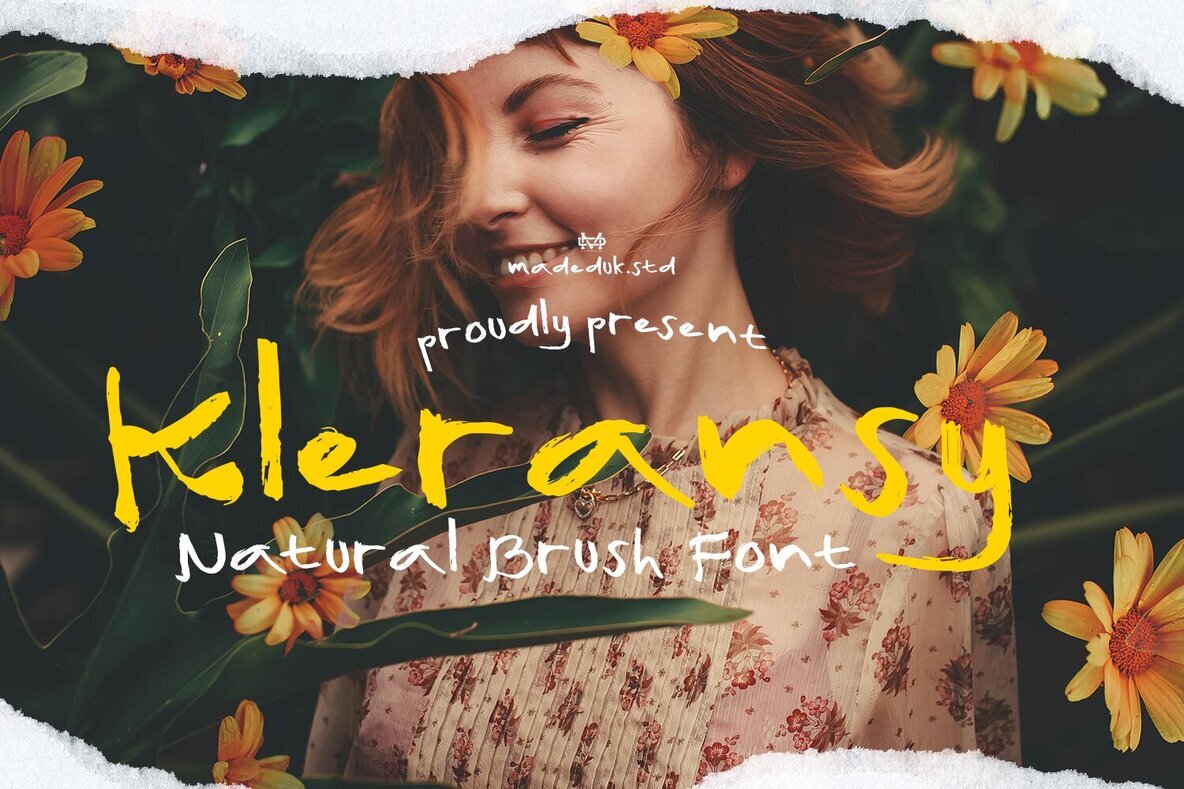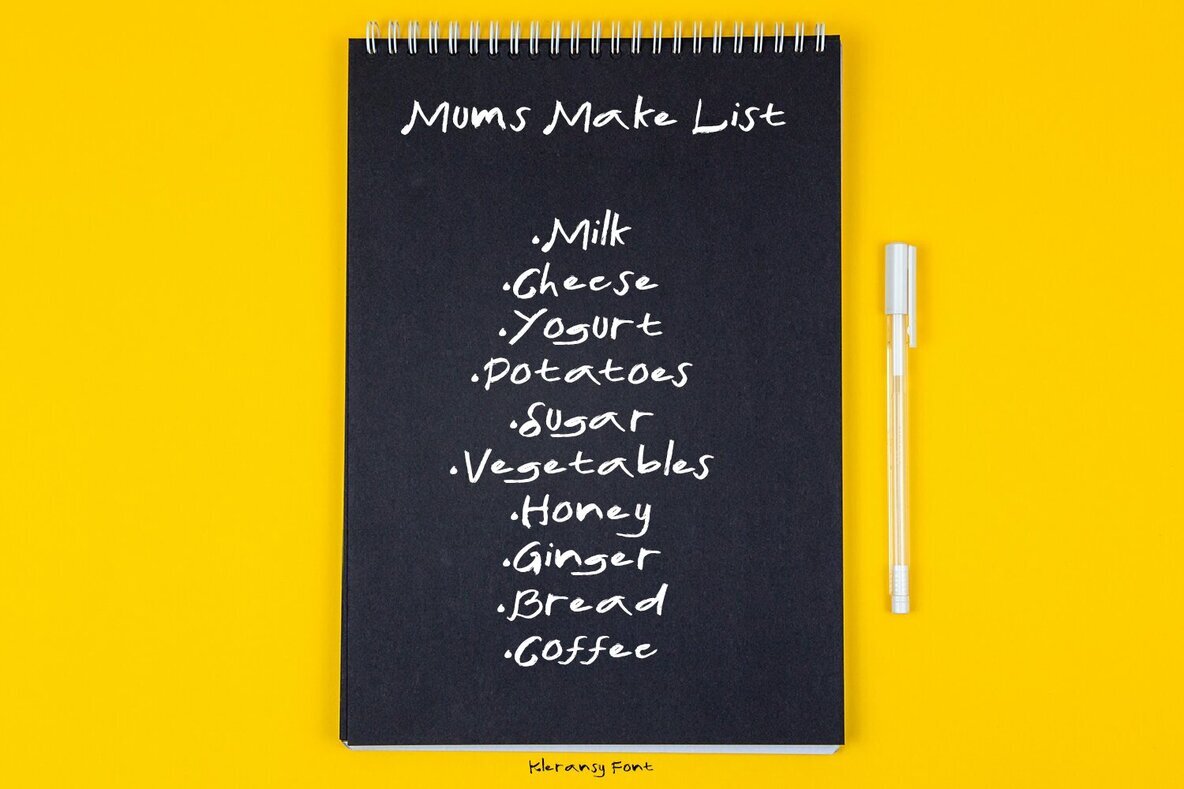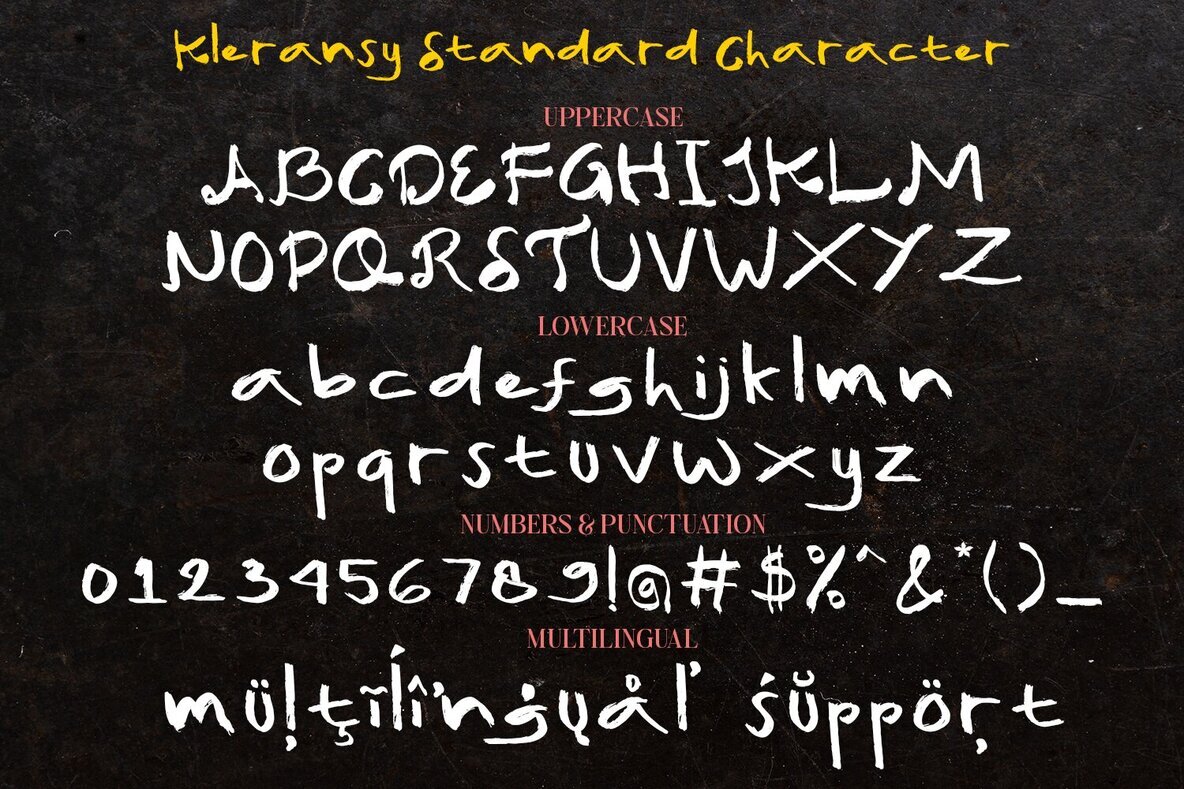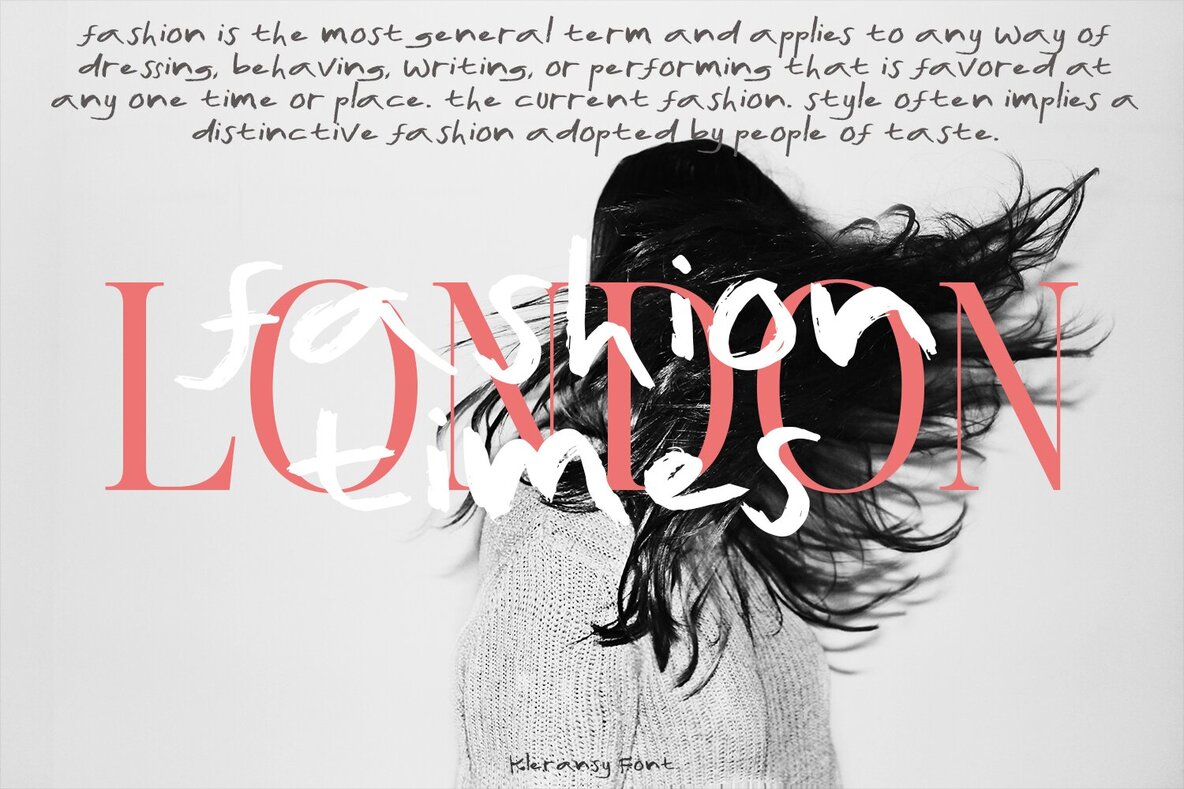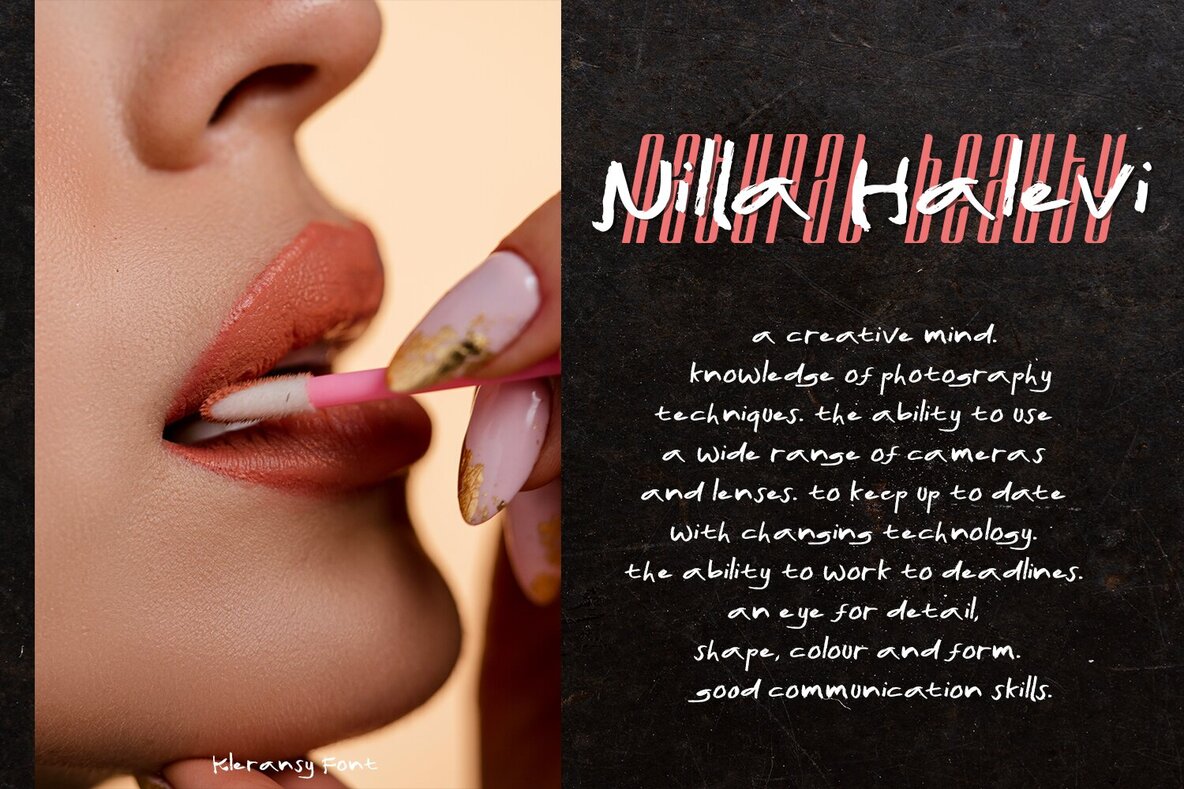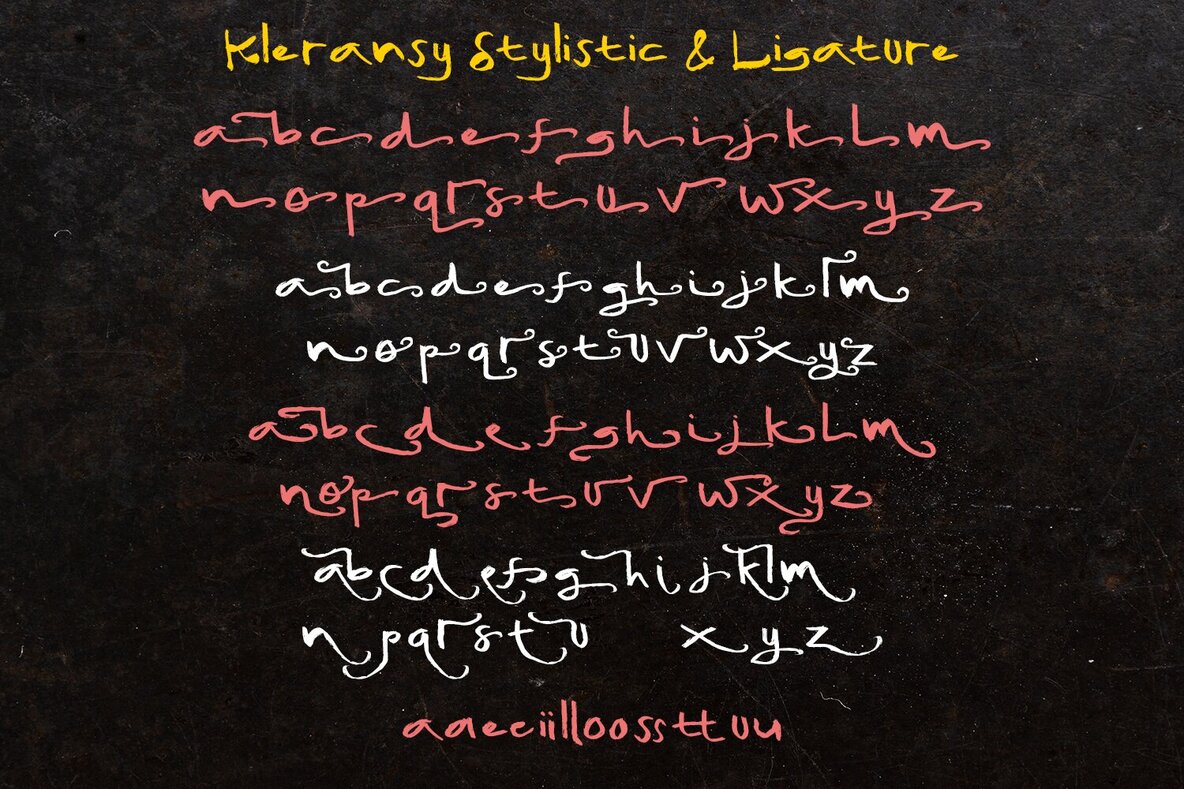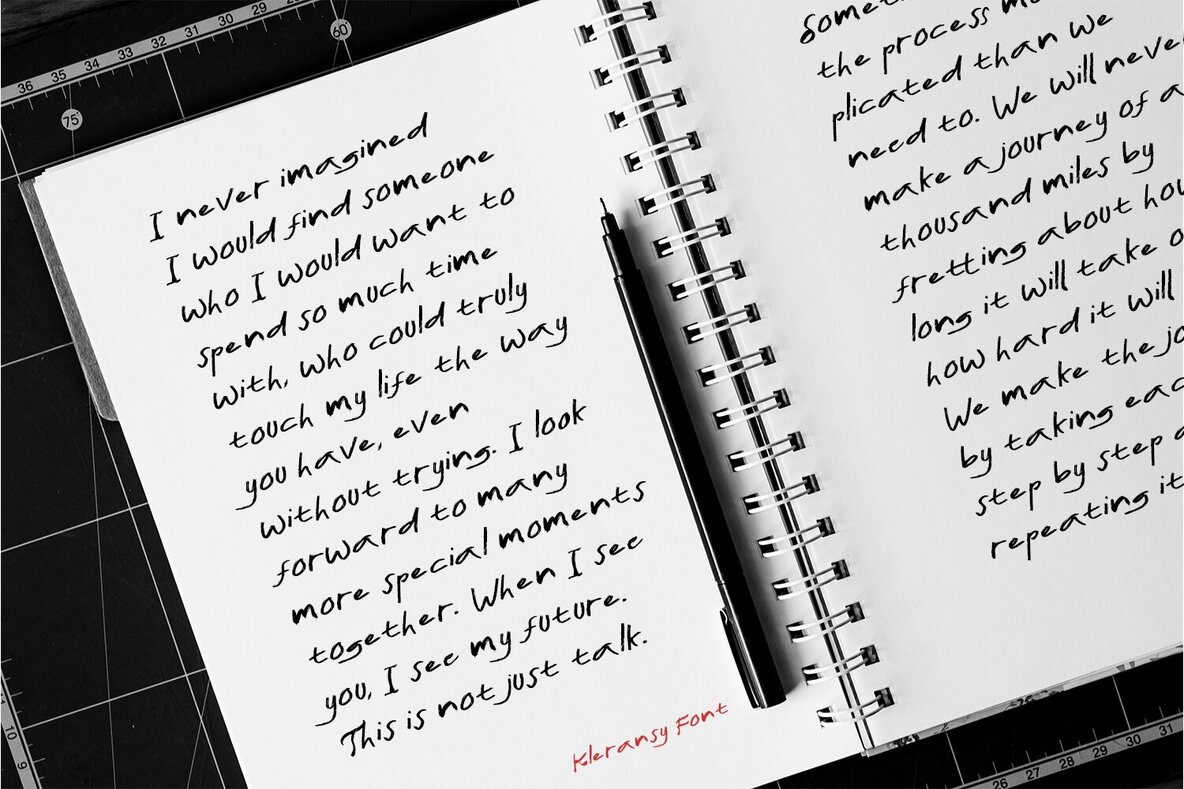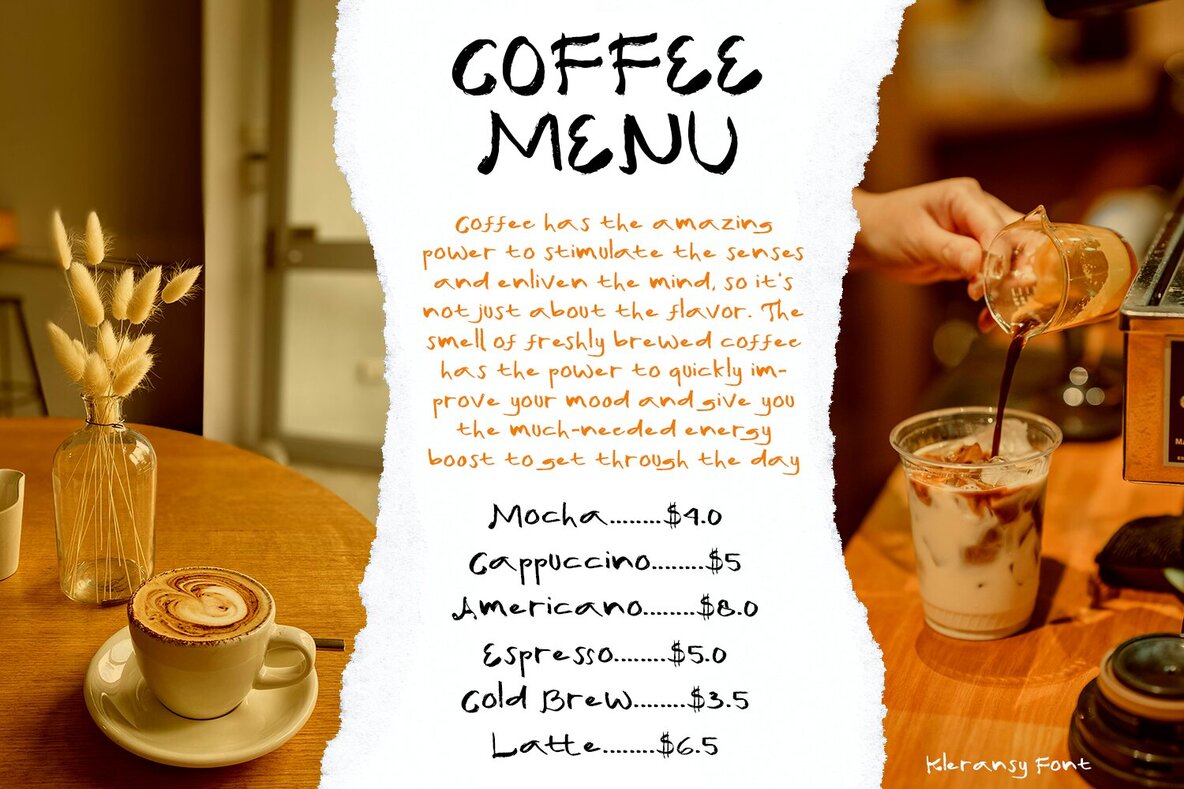
Kleransy Font
Kleransy Regular
Kleransy Italic
Introducing Kleransy, a captivating natural brush font designed to elevate your creative projects. With a wealth of alternative styles, Kleransy is the perfect choice for a wide range of design applications, from eye-catching posters and book covers to stylish merchandise and fashion campaigns. Bring your designs to life with Kleransy’s dynamic and expressive characters, making it a must-have addition to any designer's toolkit.Kleransy: A Versatile Natural Brush Font